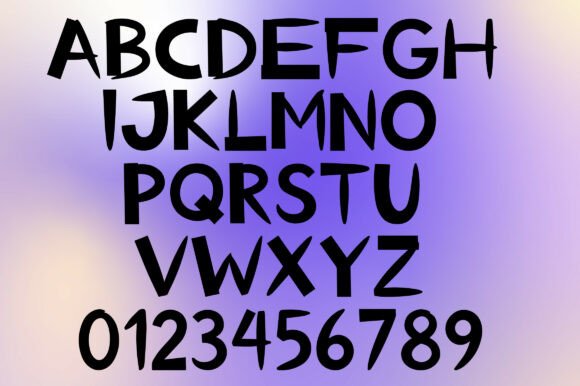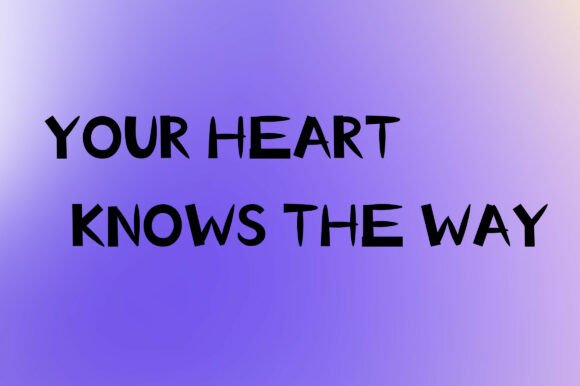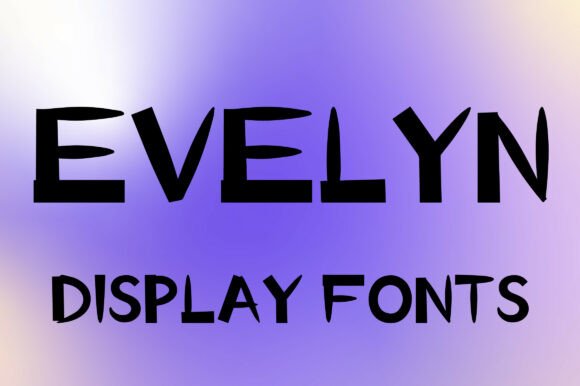
Introducing Evelyn Font: A Bold and Artistic Display Font
In the world of typography, a good font can make all the difference in creating a lasting impression. For designers and crafters looking for a unique and eye-catching display font, look no further than Evelyn Font. This bold and artistic font is perfect for branding, posters, packaging, headlines, and other standout creative projects.
What Makes Evelyn Font Special?
EVELYN is a bold display font that boasts sharp hand-cut edges, playful irregular lines, and a strong artistic character. Its unique handcrafted style creates a striking, modern look that is sure to grab attention. The font includes uppercase letters A–Z and numbers 0–9, making it versatile and easy to use.
Key Features of Evelyn Font
- Bold and Displayed: Evelyn Font is designed to make a statement. Its bold and displayed style makes it perfect for headlines, titles, and other creative projects where you want to grab attention.
- Hand-Cut Edges: The sharp hand-cut edges of Evelyn Font give it a unique and artistic look. This feature adds a touch of handmade charm to your designs.
- Playful Irregular Lines: The playful irregular lines in Evelyn Font add a touch of whimsy and creativity to your designs. This feature makes it perfect for branding, posters, and packaging.
- Strong Artistic Character: Evelyn Font has a strong artistic character that makes it perfect for creative projects. Its unique style is sure to inspire your designs.
- Handcrafted Style: Evelyn Font is a handcrafted font, which means that each letter and number has been carefully crafted to create a unique and artistic look.
- Uppercase Letters and Numbers: The font includes uppercase letters A–Z and numbers 0–9, making it versatile and easy to use.
Uses of Evelyn Font
Evelyn Font is perfect for a variety of creative projects, including:
- Branding: Use Evelyn Font to create a unique and memorable brand identity.
- Posters: Evelyn Font is perfect for creating eye-catching posters that grab attention.
- Packaging: Add a touch of creativity to your packaging with Evelyn Font.
- Headlines: Use Evelyn Font to create bold and attention-grabbing headlines.
- Creative Projects: Evelyn Font is perfect for any creative project where you want to add a touch of artistic charm.
Tips for Using Evelyn Font
Here are some tips for using Evelyn Font:
- Use it boldly: Evelyn Font is designed to make a statement, so use it boldly and don’t be afraid to experiment.
- Pair it with other fonts: Evelyn Font pairs well with other fonts, so try pairing it with a sans-serif font for a contrasting look.
- Experiment with colors: Evelyn Font looks great in a variety of colors, so experiment with different colors to find the one that works best for your design.
Evelyn Font is a bold and artistic display font that is perfect for designers and crafters looking for a unique and eye-catching font. Its handcrafted style, sharp hand-cut edges, and playful irregular lines make it perfect for branding, posters, packaging, headlines, and other creative projects. With its versatility and ease of use, Evelyn Font is sure to become a favorite in your font collection.